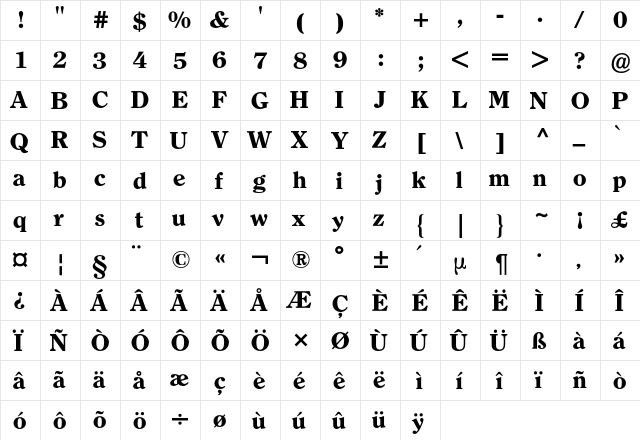
Clearface ATF BQ Regular Font Preview
Clearface ATF BQ Regular
Design Context for Clearface ATF BQ Typeface
Clearface ATF BQ is a composed and adaptable typeface that performs quietly and consistently across a wide range of design contexts.